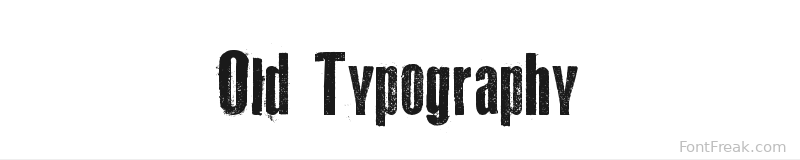
Old Typography
Old Typography by Galdino Otten Fonts is a unique display font that embodies a vintage aesthetic, making it perfect for projects that require a touch of nostalgia. This font features a serif style with a bold, rugged appearance, characterized by its substantial stroke weight and varied contrast between thick and thin lines. The uneven spacing between characters adds to its distinct charm, giving it an organic feel that sets it apart from more polished typefaces. Decorative elements are subtly integrated, enhancing its old-world appeal without overwhelming the overall design.
This font is particularly well-suited for a variety of creative applications. It shines in wedding invitations, where its elegant yet rustic vibe can evoke heartfelt emotions. Movie posters benefit from its dramatic flair, capturing attention and setting the tone for the film's theme. Restaurant menus can use Old Typography to evoke a cozy, inviting atmosphere, especially in establishments that pride themselves on traditional cuisine. Additionally, it serves as an excellent choice for branding and logo design for artisanal products or vintage shops, where authenticity is paramount.
The target audience for Old Typography encompasses graphic designers seeking to infuse their projects with character, small business owners aiming to establish a unique brand identity, and content creators looking for fonts that resonate with their audience.
What makes Old Typography stand out is its ability to convey a sense of history and authenticity, making it an invaluable asset for anyone looking to evoke a bygone era in their designs. With its free license, the Old Typography font free download offers an accessible option for those who appreciate quality typefaces without the associated costs. Embrace the charm of Old Typography and elevate your next project with this distinctive font.